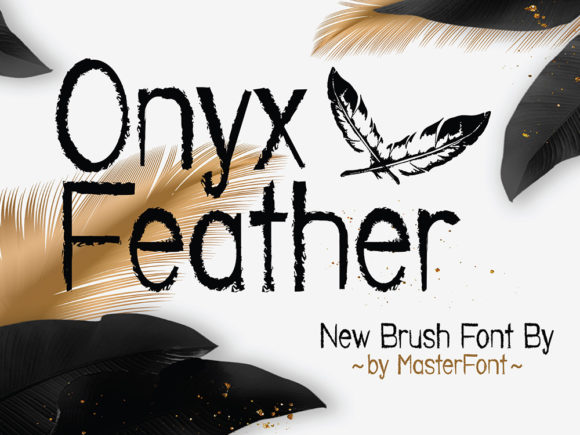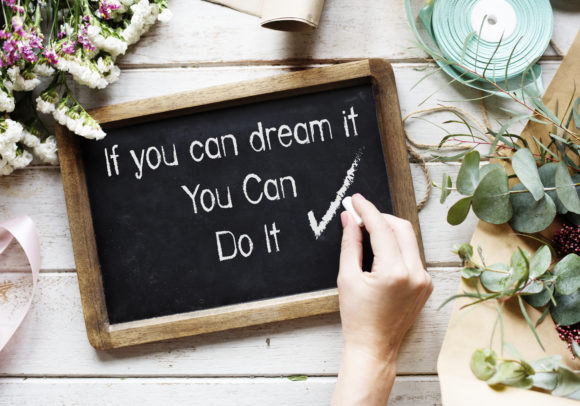
Onyx Feather Font
About Onyx Feather Font
Onyx Feather is a simple and brushed handwritten font, that can be used for all chalkboard quotes or teaching material! Its authentic look will add a personal and realistic feel to your designs.